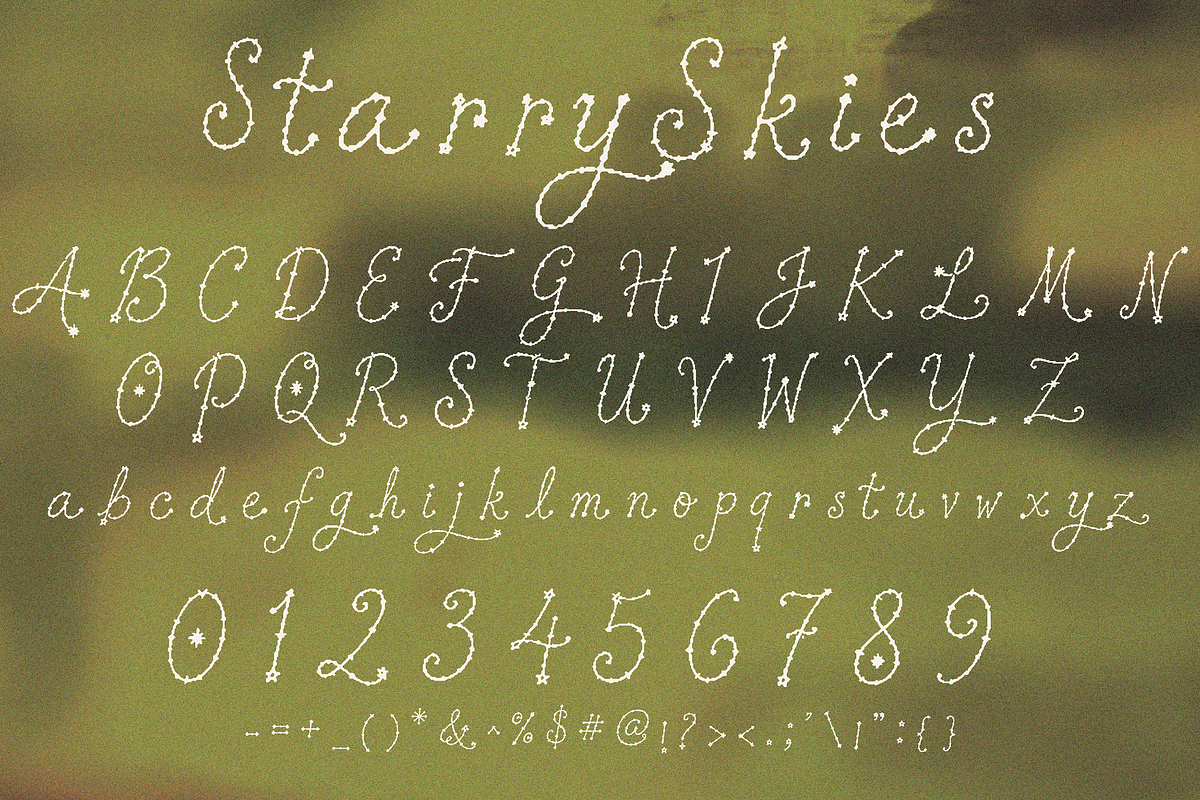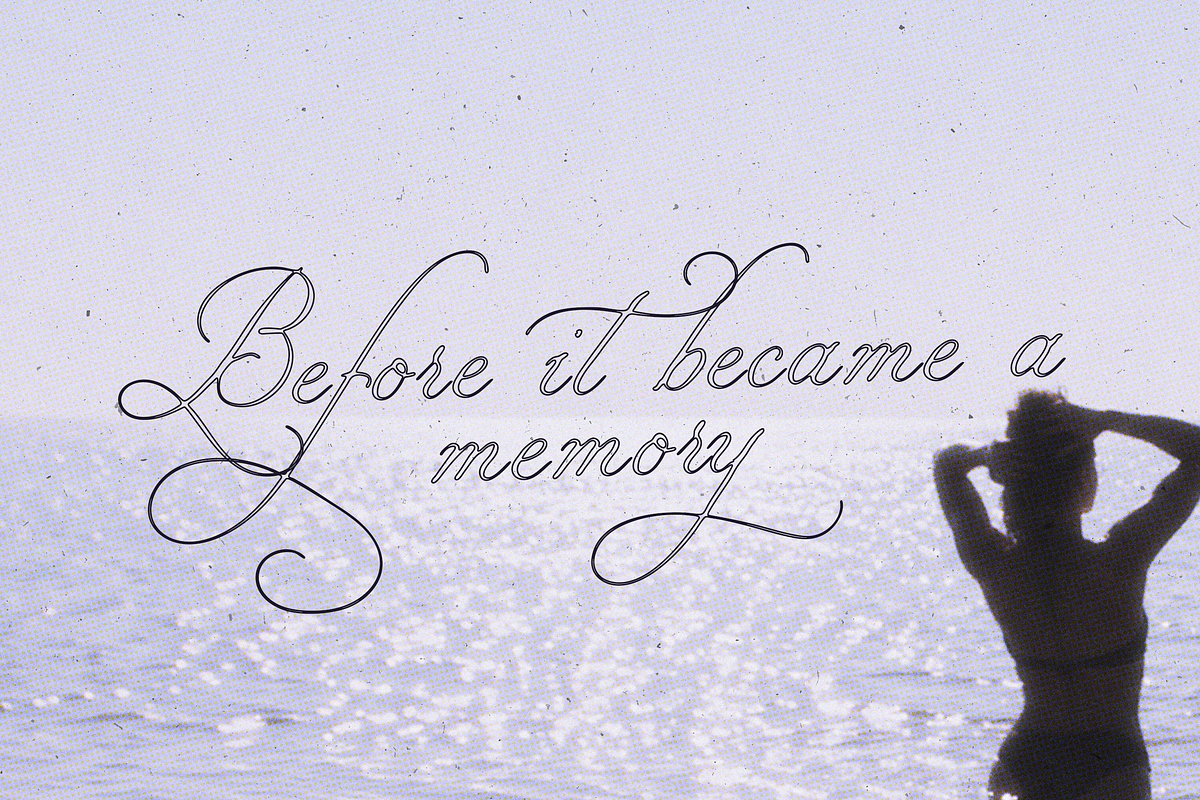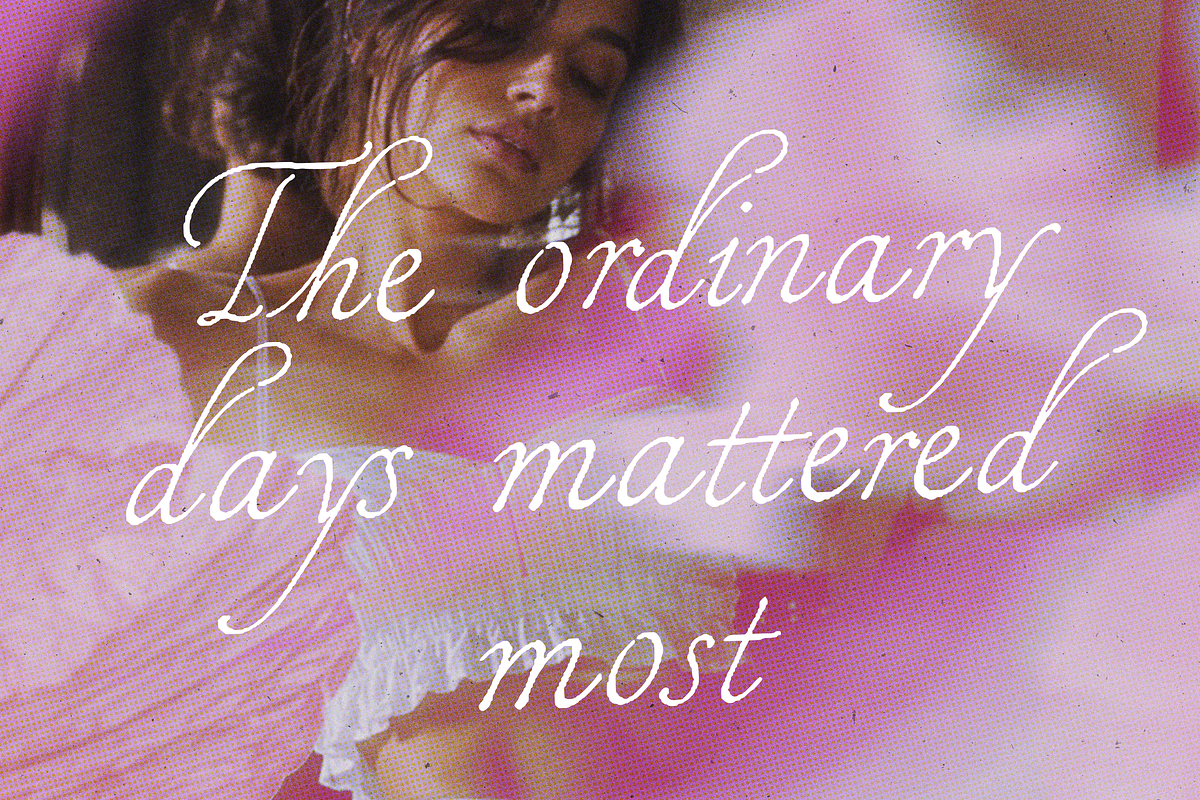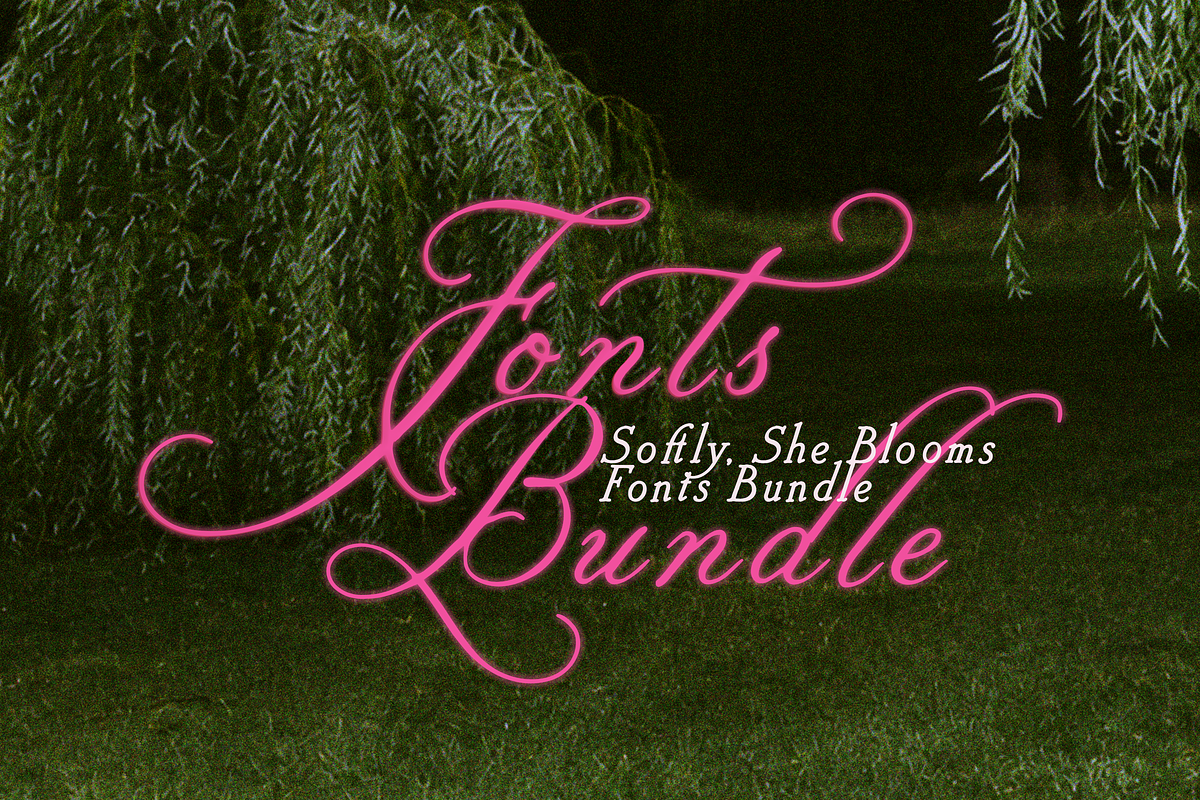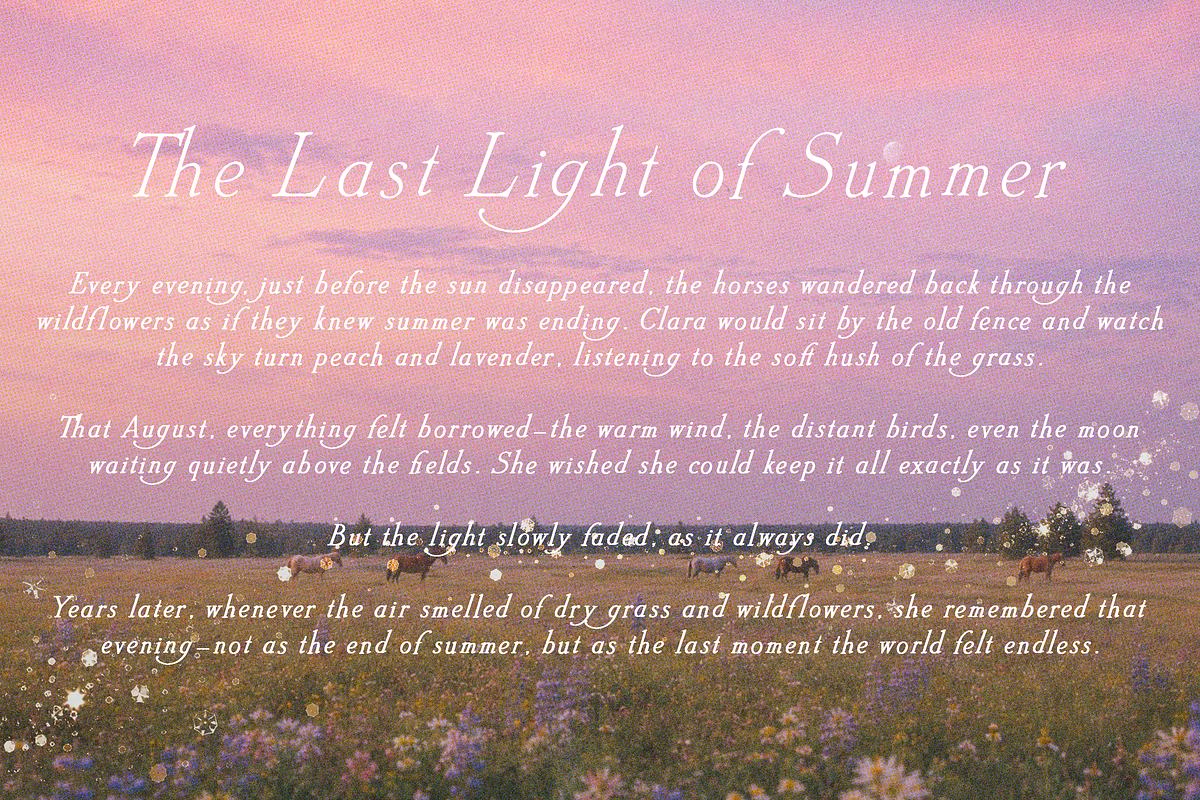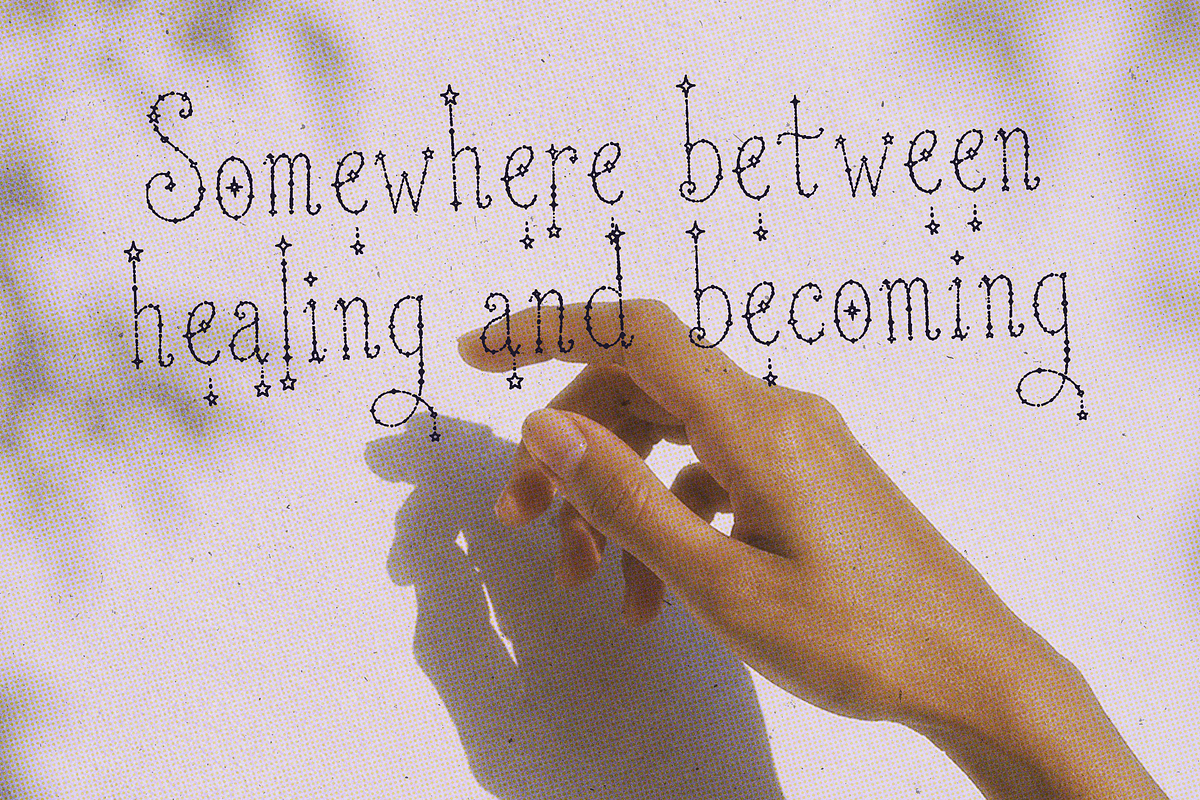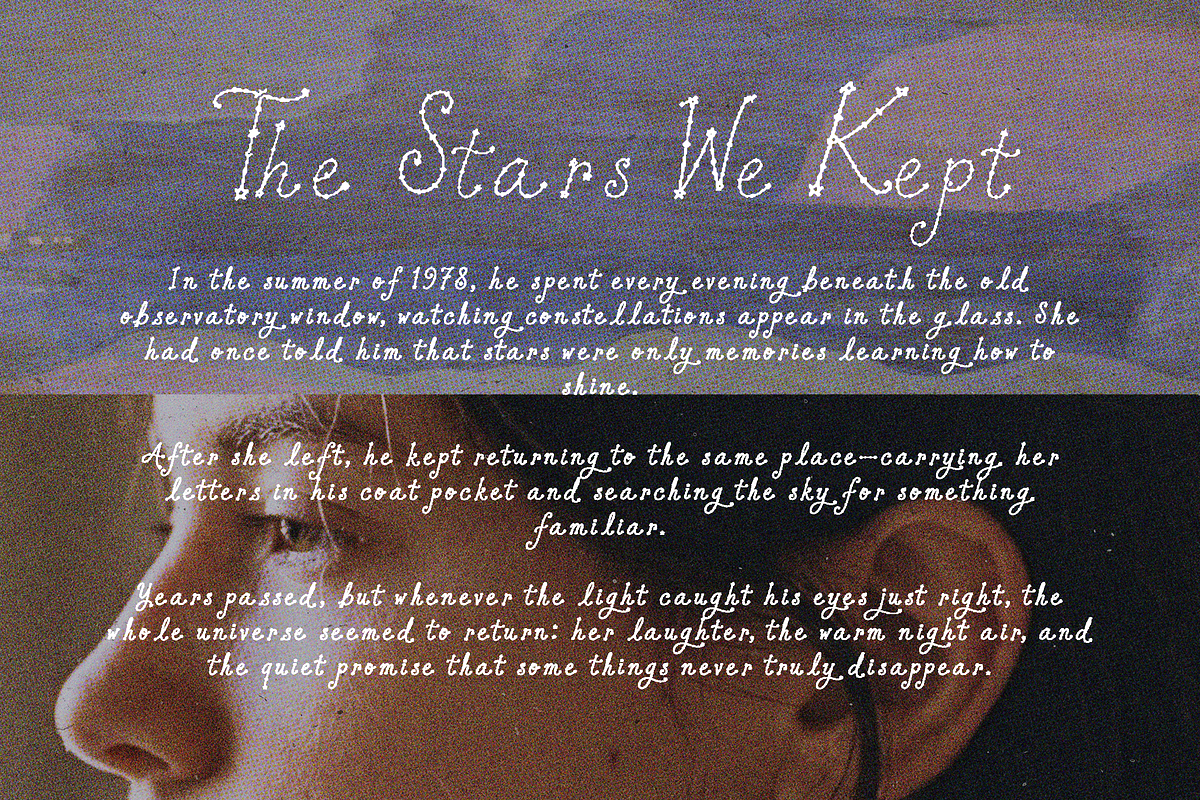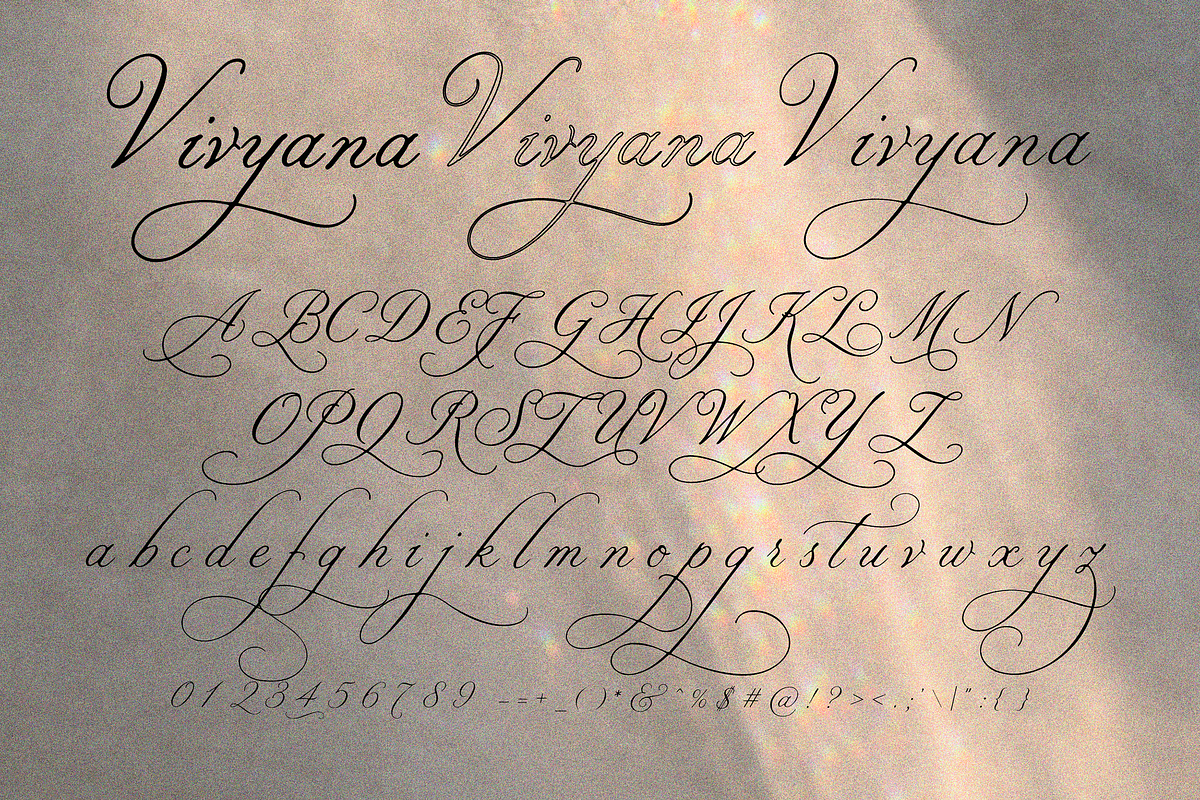
Softly, She Blooms - Fonts Bundle
Softly, She Blooms is a romantic collection of six expressive typefaces created for designs that feel dreamy, feminine, nostalgic, and beautifully personal. From delicate penmanship and sweeping calligraphy to whimsical celestial lettering, every font brings its own personality while blending effortlessly with the rest of the collection.
The bundle includes:
Vivyana — an elegant calligraphy script with graceful curves, dramatic capitals, and luxurious flourishes.
Hall Penmanship — an elegant script inspired by the graceful penmanship of Norman P. Hall, featuring refined letterforms, delicate movement, and the timeless character of traditional handwritten correspondence.
As You Wish — a soft and romantic script with slender strokes, flowing forms, and a storybook feeling.
StarryNight — a whimsical celestial font decorated with tiny stars, hanging ornaments, and magical details.
StarrySkies — a charming handwritten typeface with delicate star accents and an imperfect, dreamy character.
Whimsey — an ornate display font filled with playful curls, decorative strokes, and vintage fairytale charm.
Together, these fonts are perfect for:
Wedding invitations, romantic stationery, branding, logos, book covers, poetry, editorial layouts, social media graphics, packaging, posters, album artwork, feminine products, and nostalgic designs.
Use each font individually as a statement typeface or combine them to create layered typography with contrast, elegance, and a touch of magic. Softly, She Blooms was made for tender words, beautiful memories, and designs that feel like they belong inside an old love letter.
Six fonts. Six personalities. One softly blooming collection.